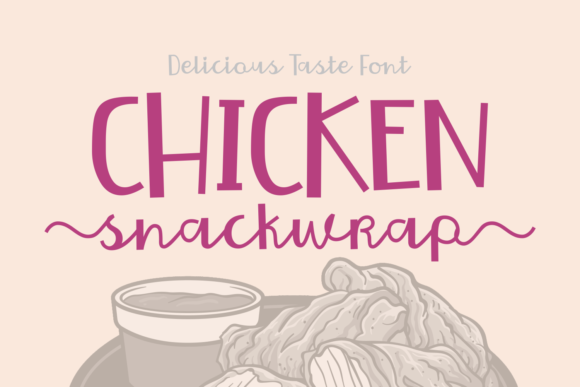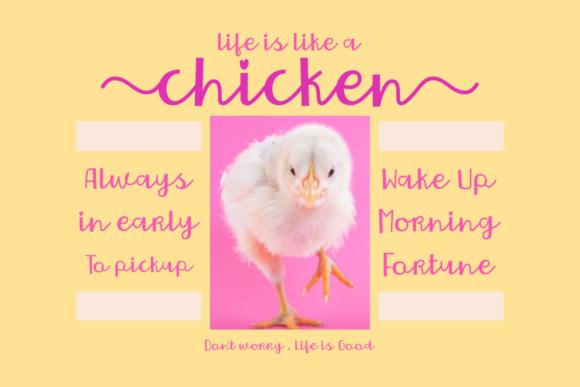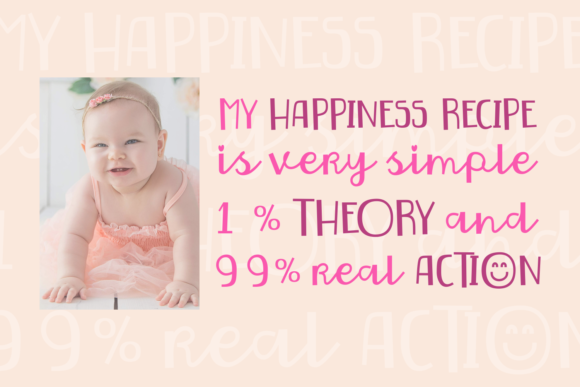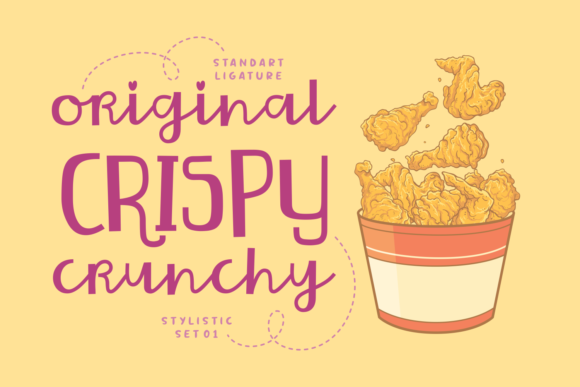
Chicken Snackwrap Font
About Chicken Snackwrap Font
Chicken Snackwrap is a fun and bold handwritten font. Full of personality, it will effortlessly turn any crafts project into a standout!